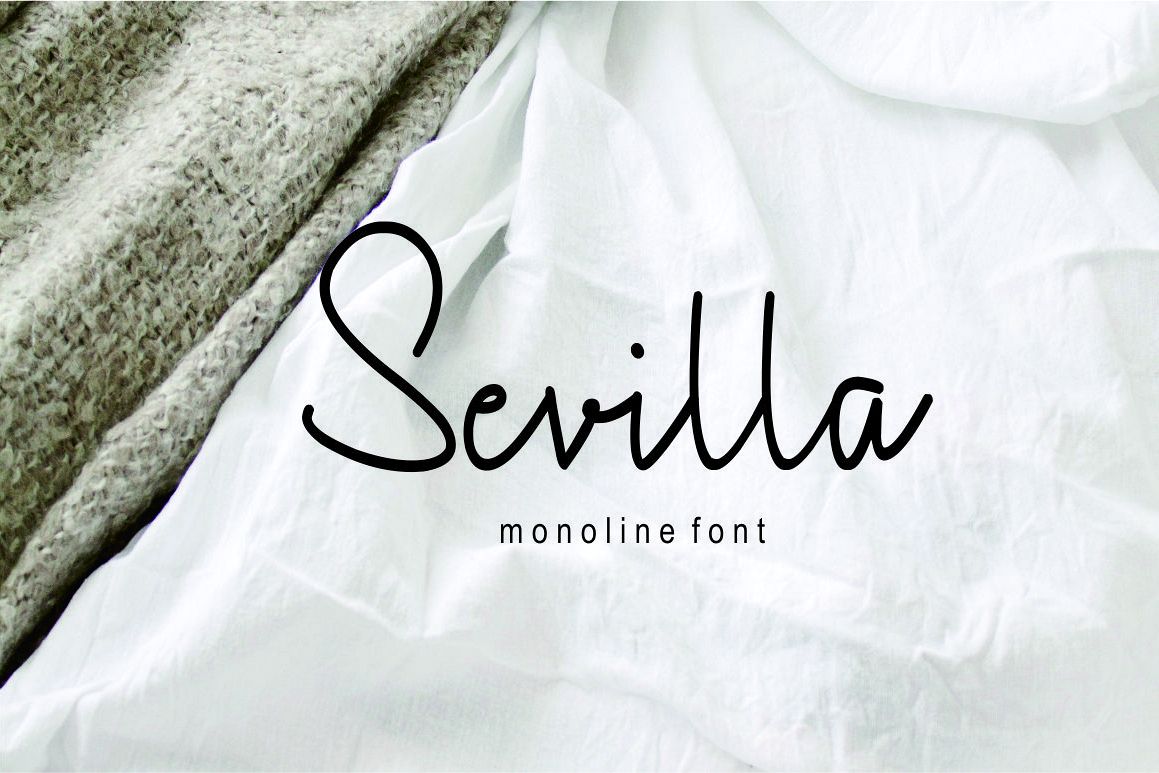
sevilla
Introducing, we just now launch new font is Sevilla!
This font is very very Suitable for logo,business card,clothing,quote,poster,banner,watermark,signature,magazine,web,and web design